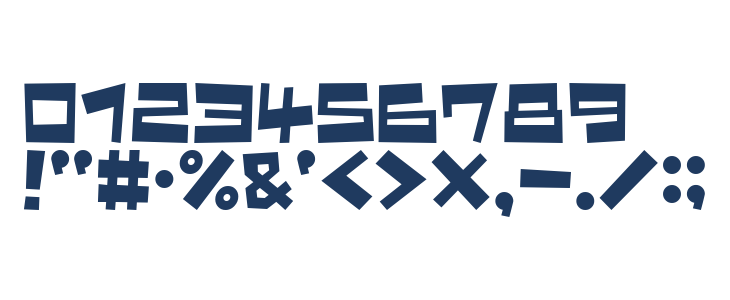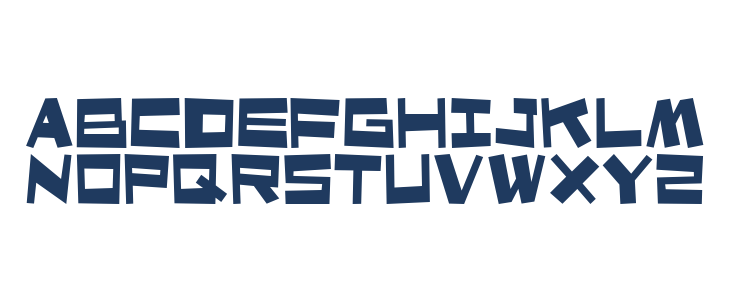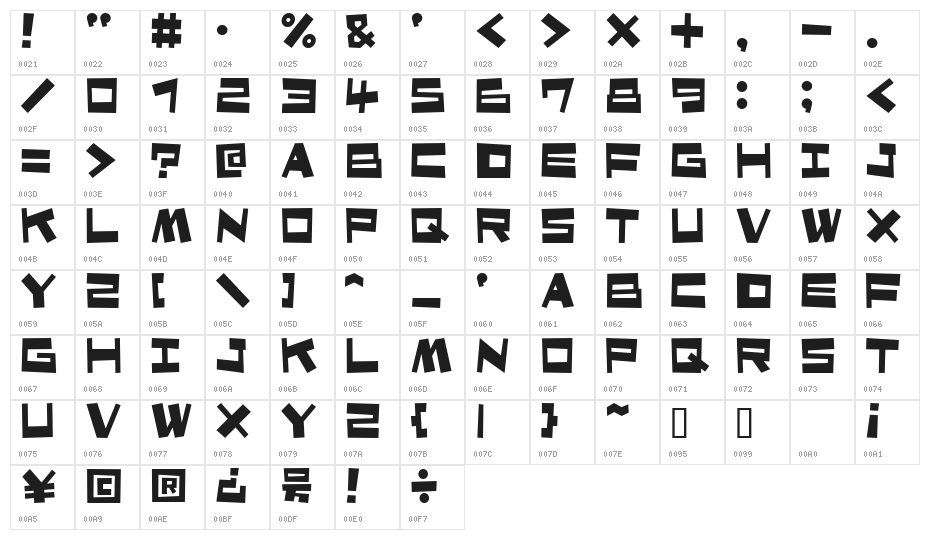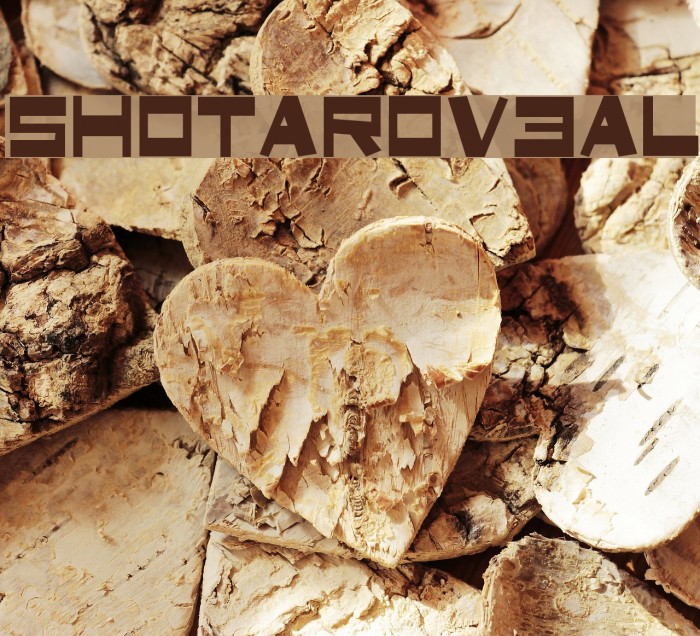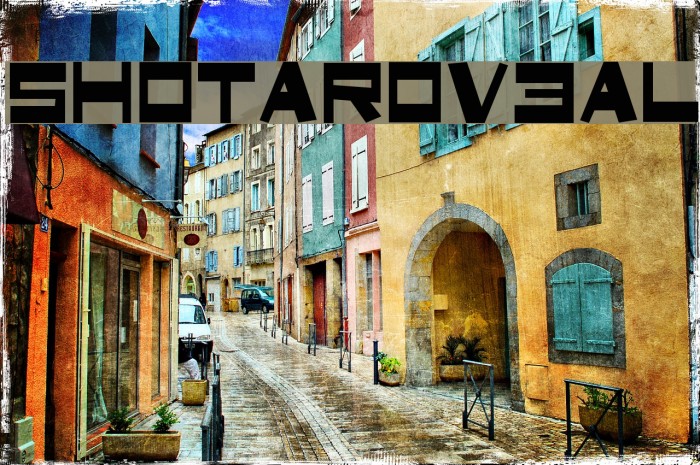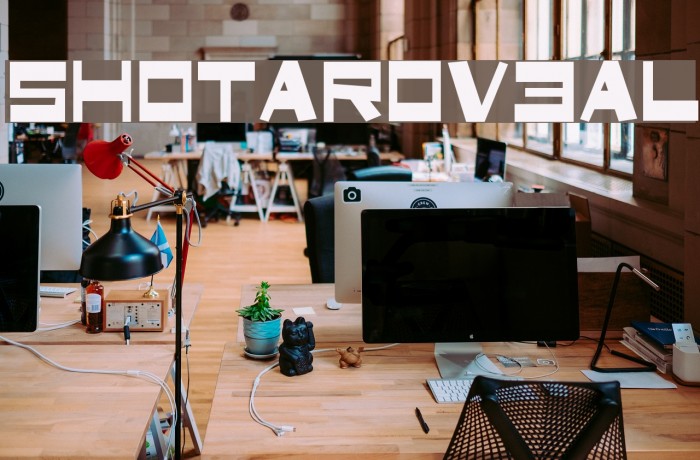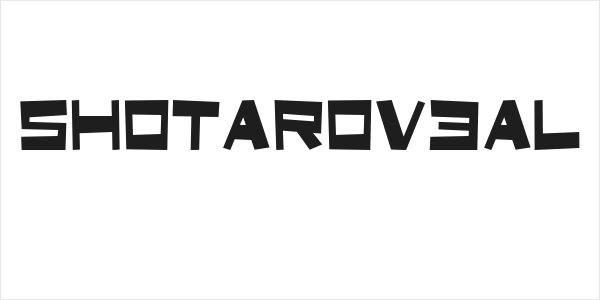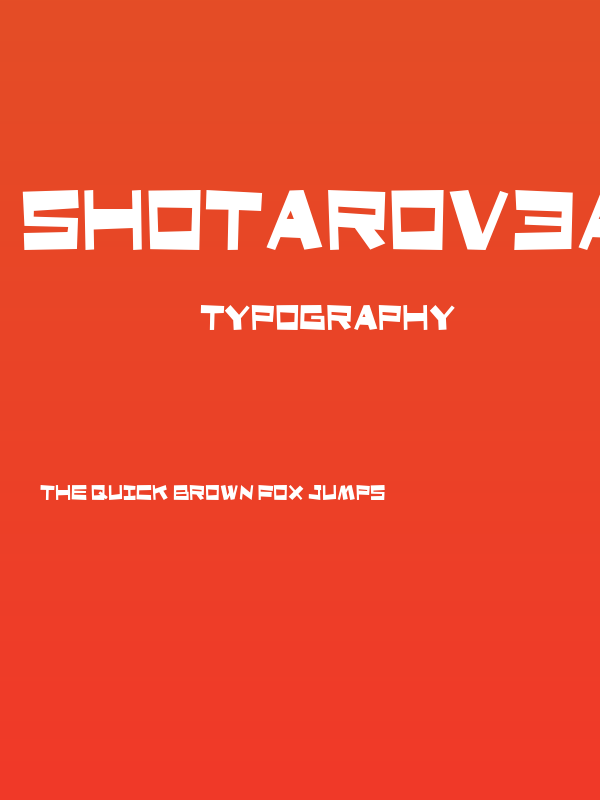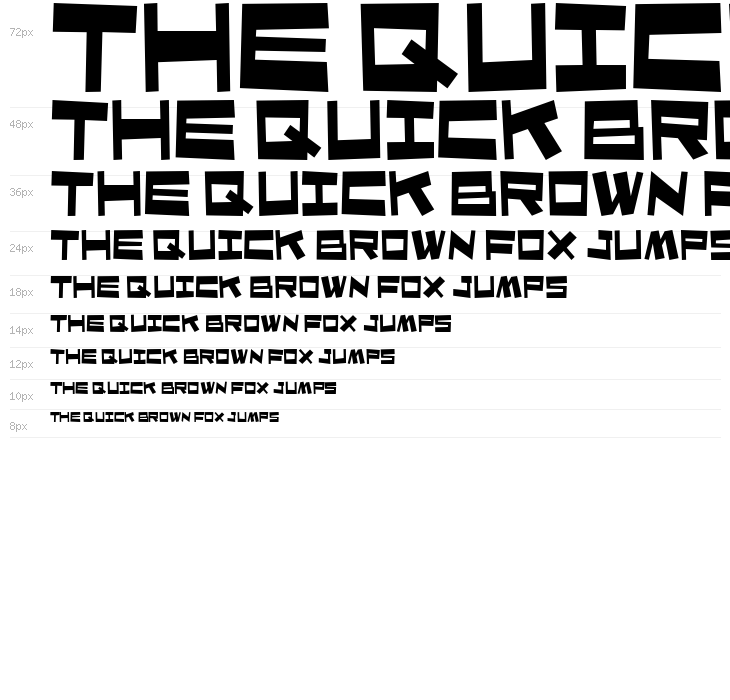
ShotaroV3AL Font
ShotaroV3AL Description
This font features a bold, geometric design with a distinctly modern and edgy aesthetic. The characters are constructed with sharp angles and straight lines, giving them a futuristic and industrial feel. The uppercase letters are particularly striking, with a blocky appearance that commands attention. The lowercase letters maintain the same angular style, ensuring consistency throughout the typeface. Numbers and special characters are designed to match the boldness and geometric nature of the alphabet, making this font versatile for various applications. The overall style is both eye-catching and functional, suitable for projects that require a strong visual impact.
| Proposed Projects | Ideal for branding, posters, video game graphics, and any project needing a futuristic or industrial vibe. |